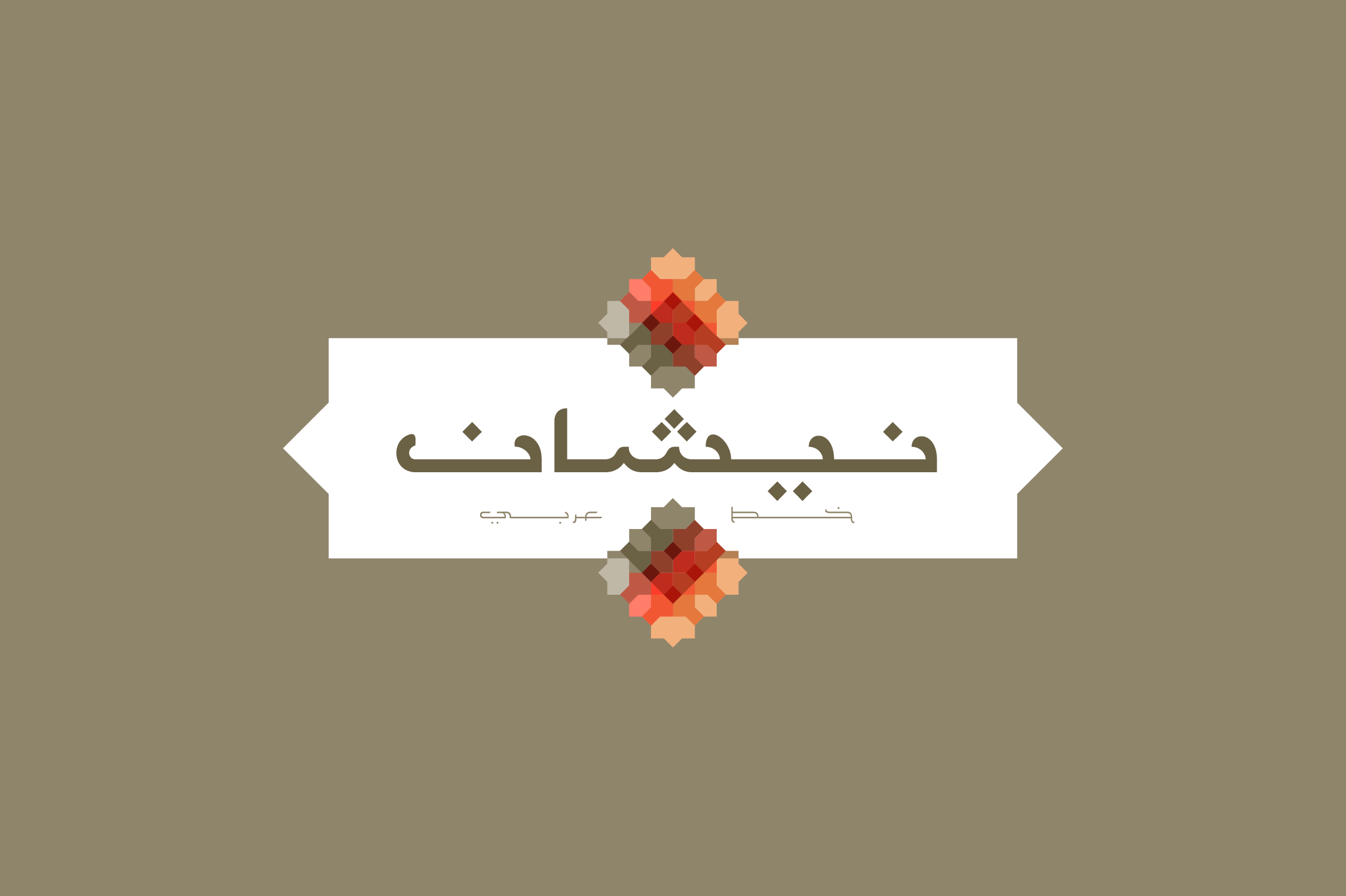
Nishan - Arabic Typeface
Nishan is a distinctive typeface that blends the essence of ancient Kufic scripts with the sophistication of modern Arabic typography. Its letterforms exhibit a pronounced contrast in dimensions (length and width). The relatively wide spacing can slightly hinder readability, which makes Nishan particularly well-suited for creative typography. The typeface is available in three weights (Light, Regular, and Bold) and it supports Windows, Mac and mobile applications.